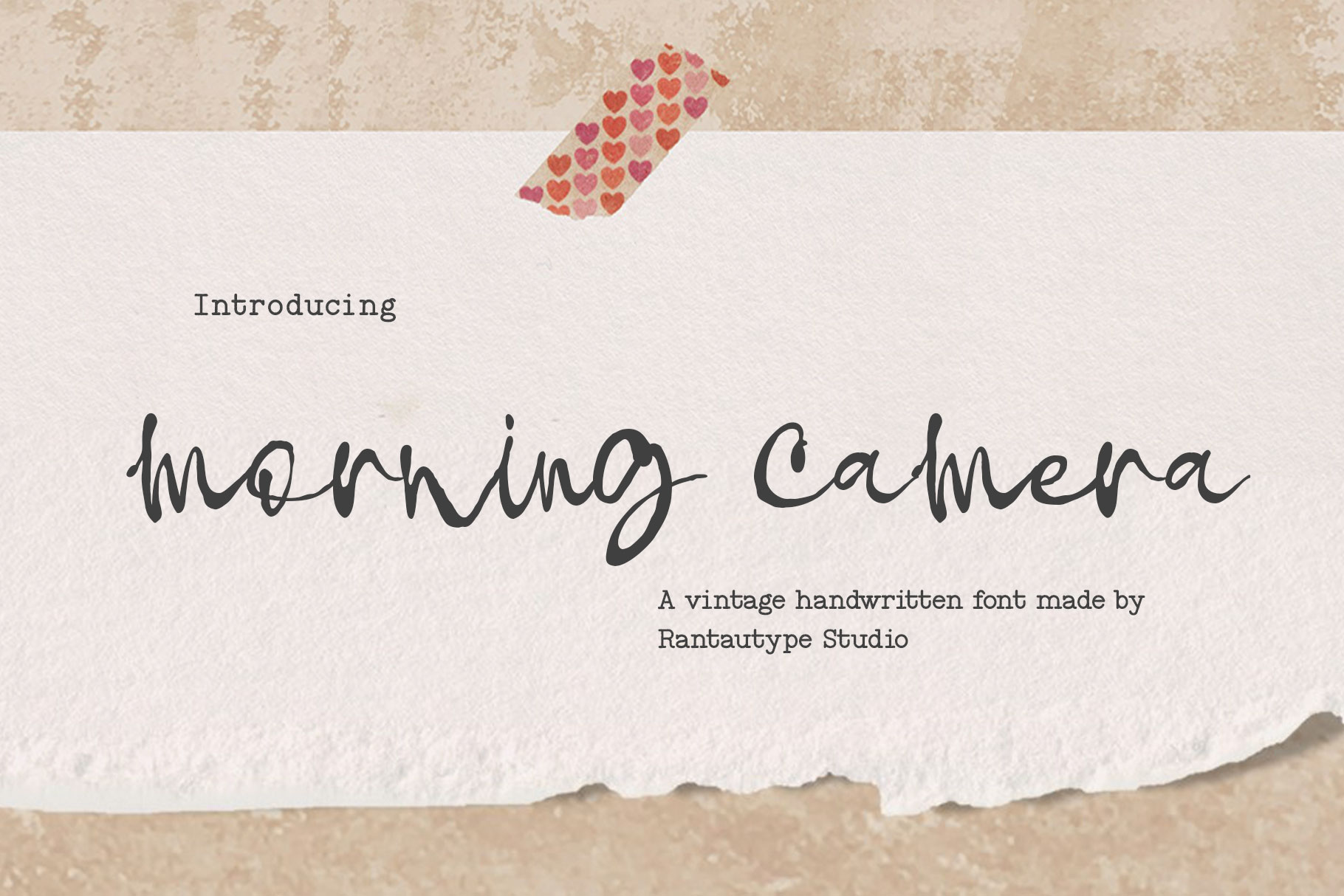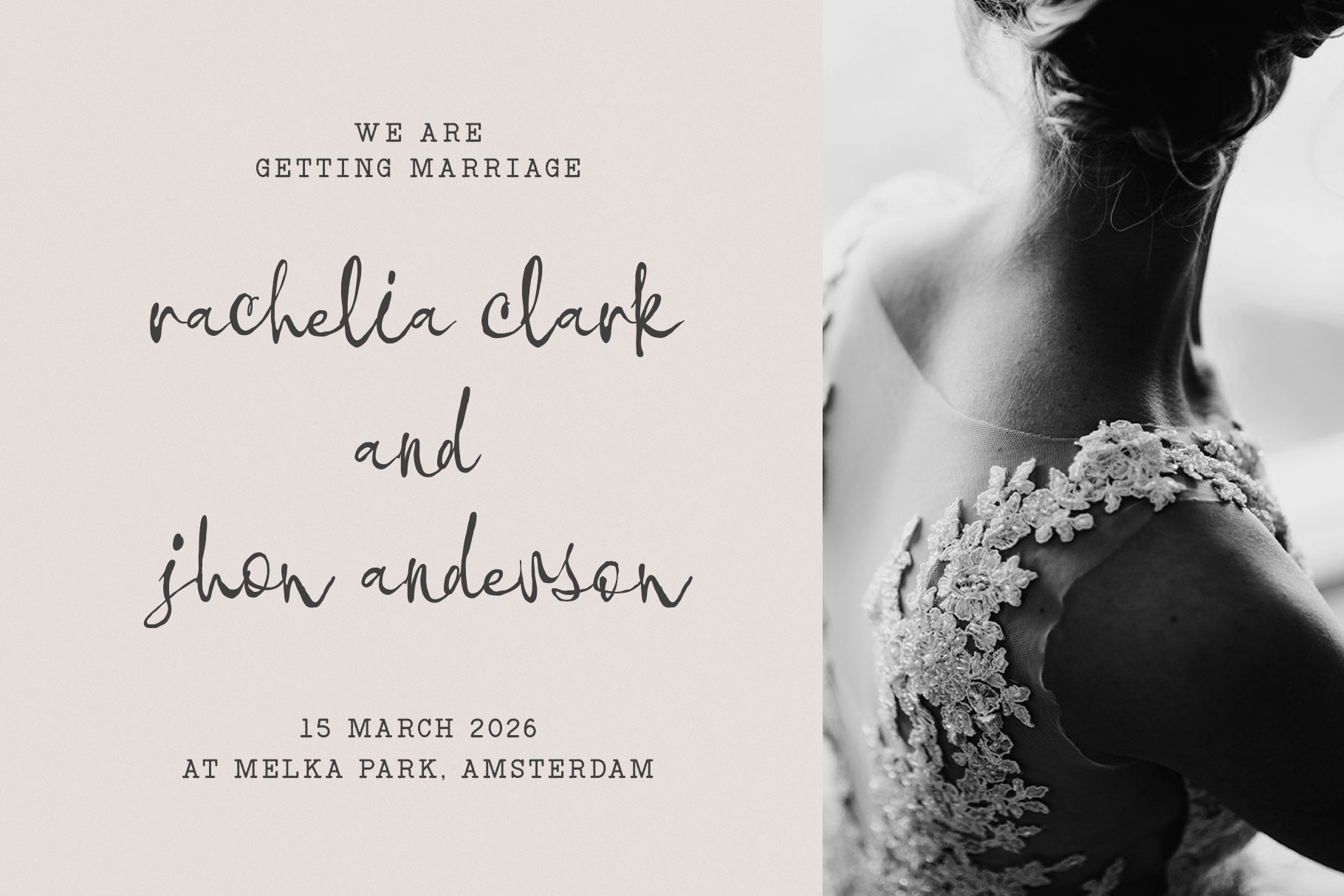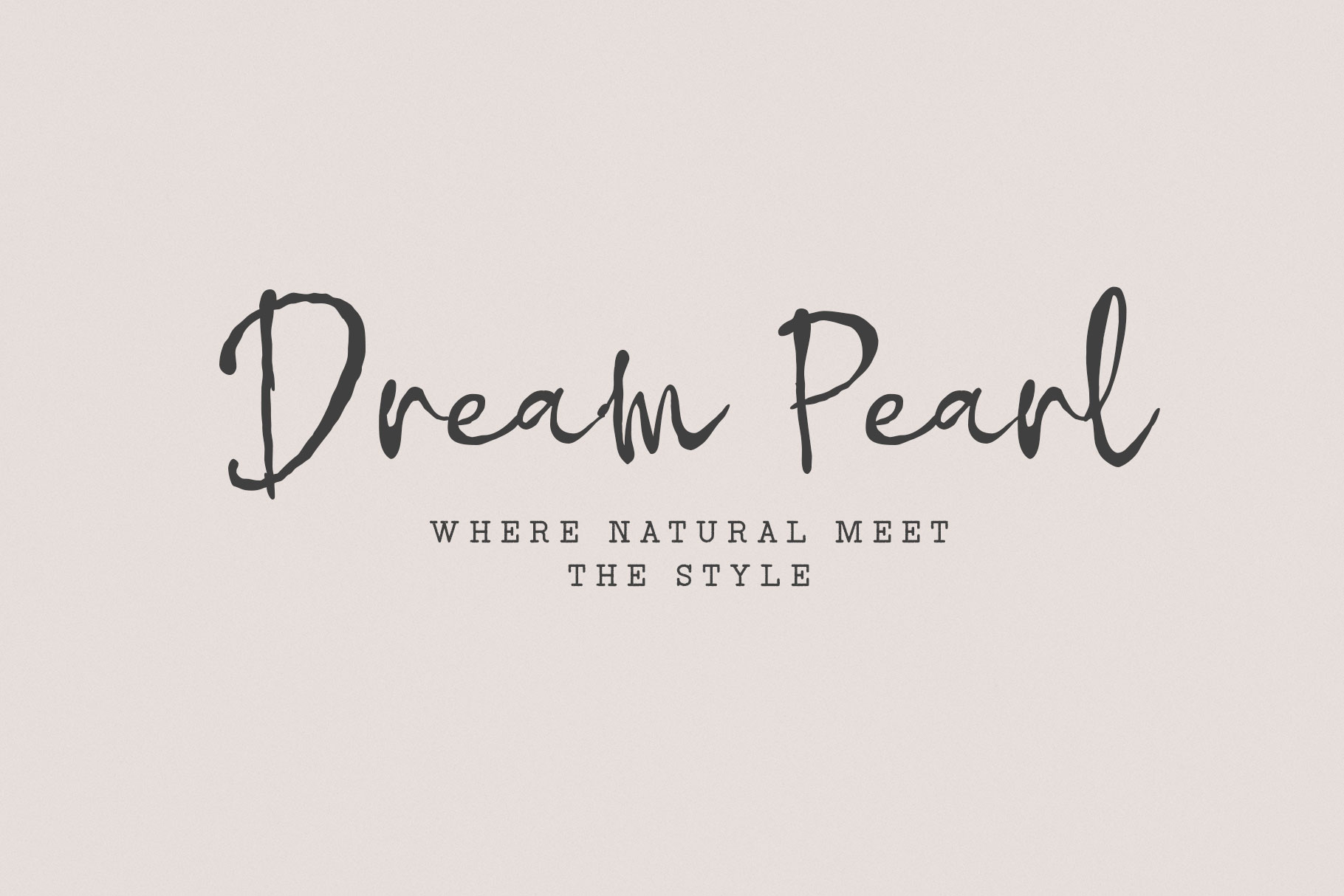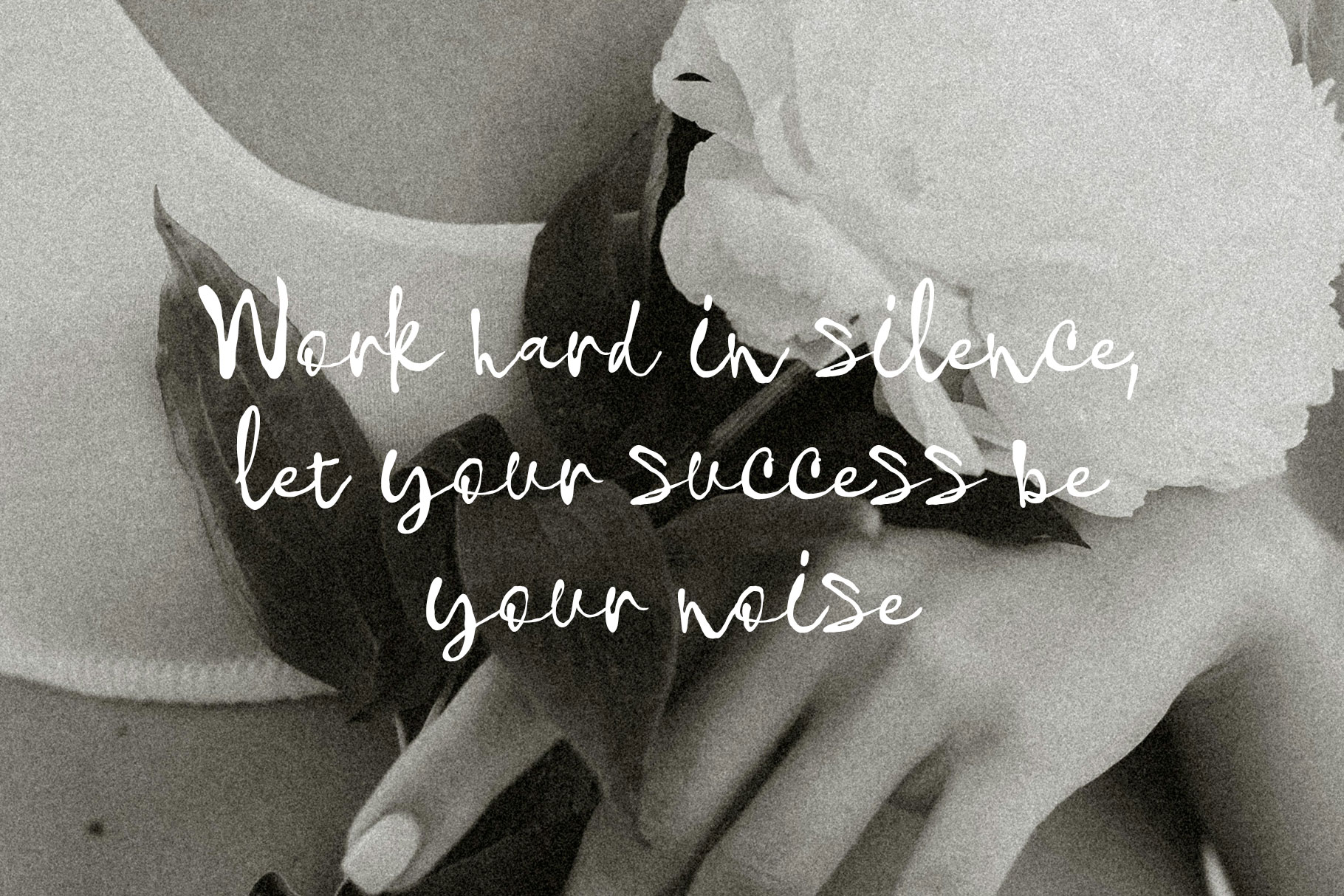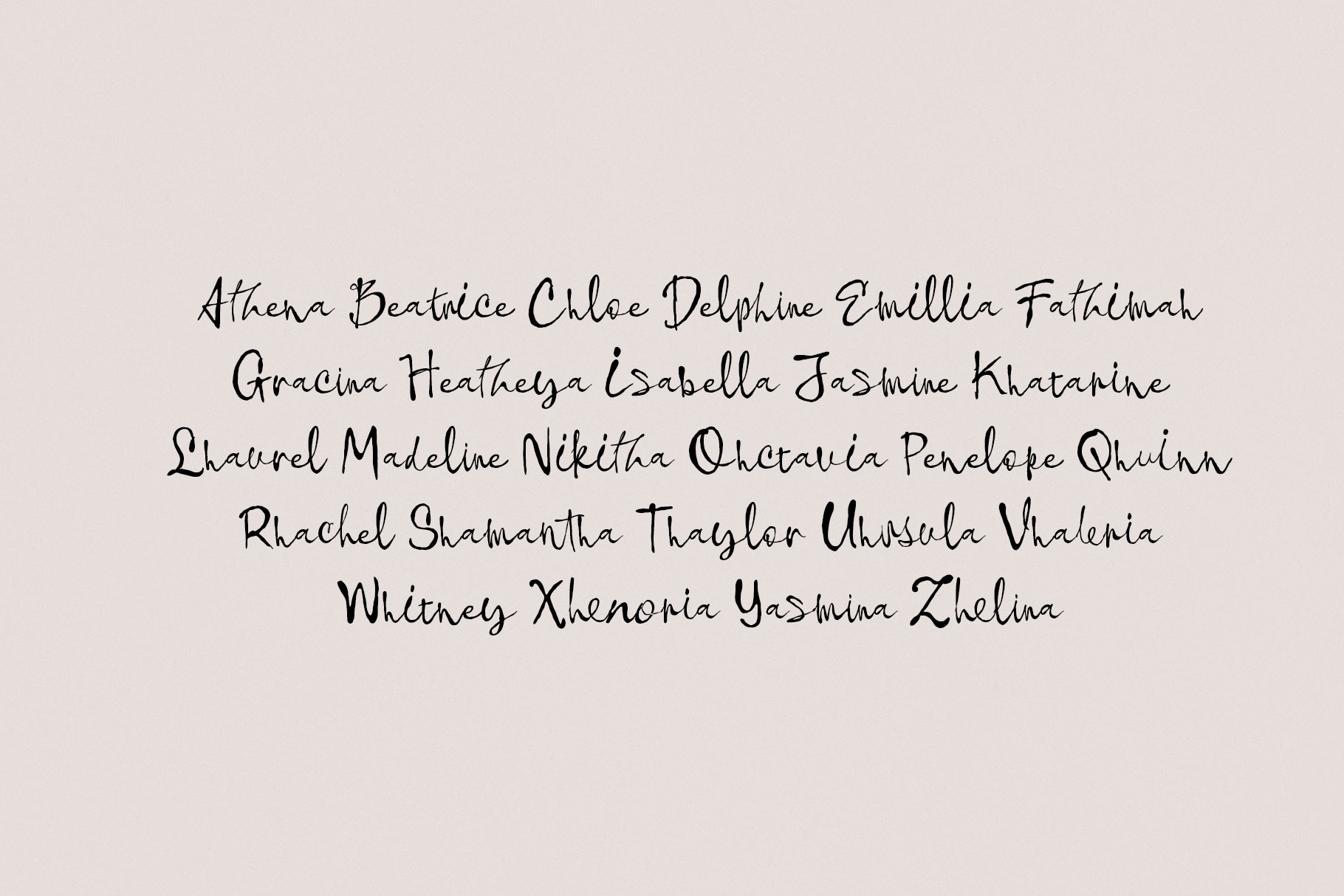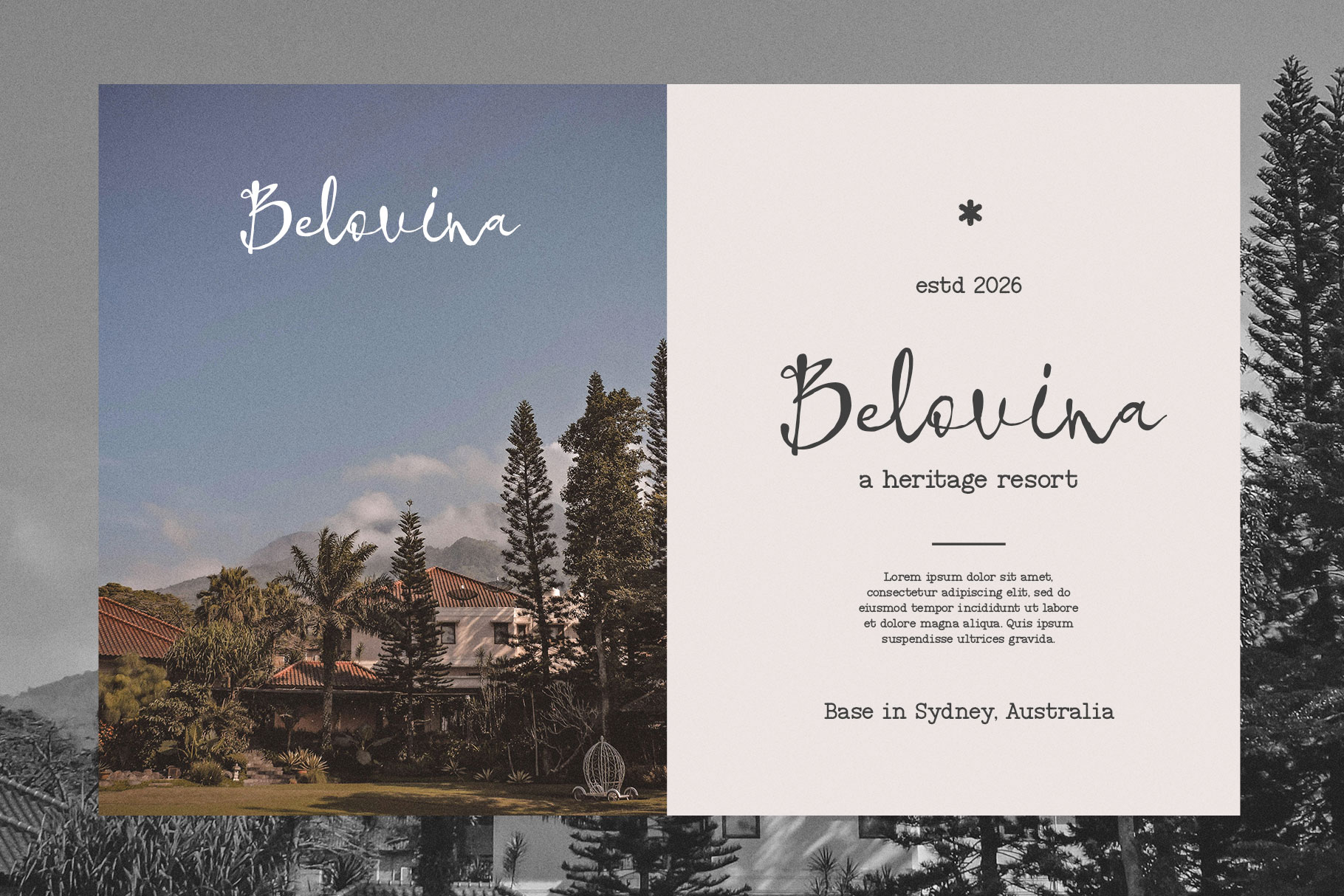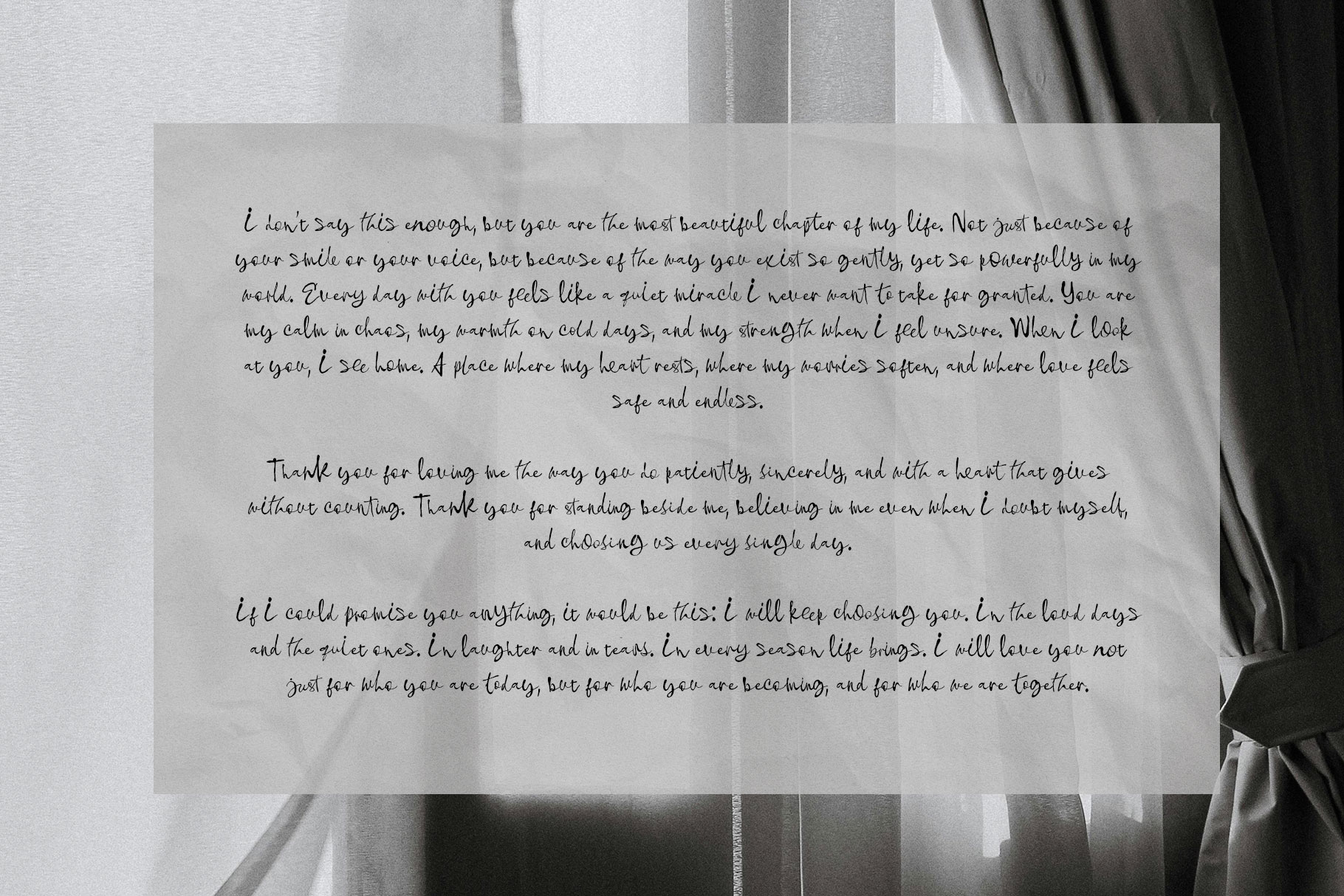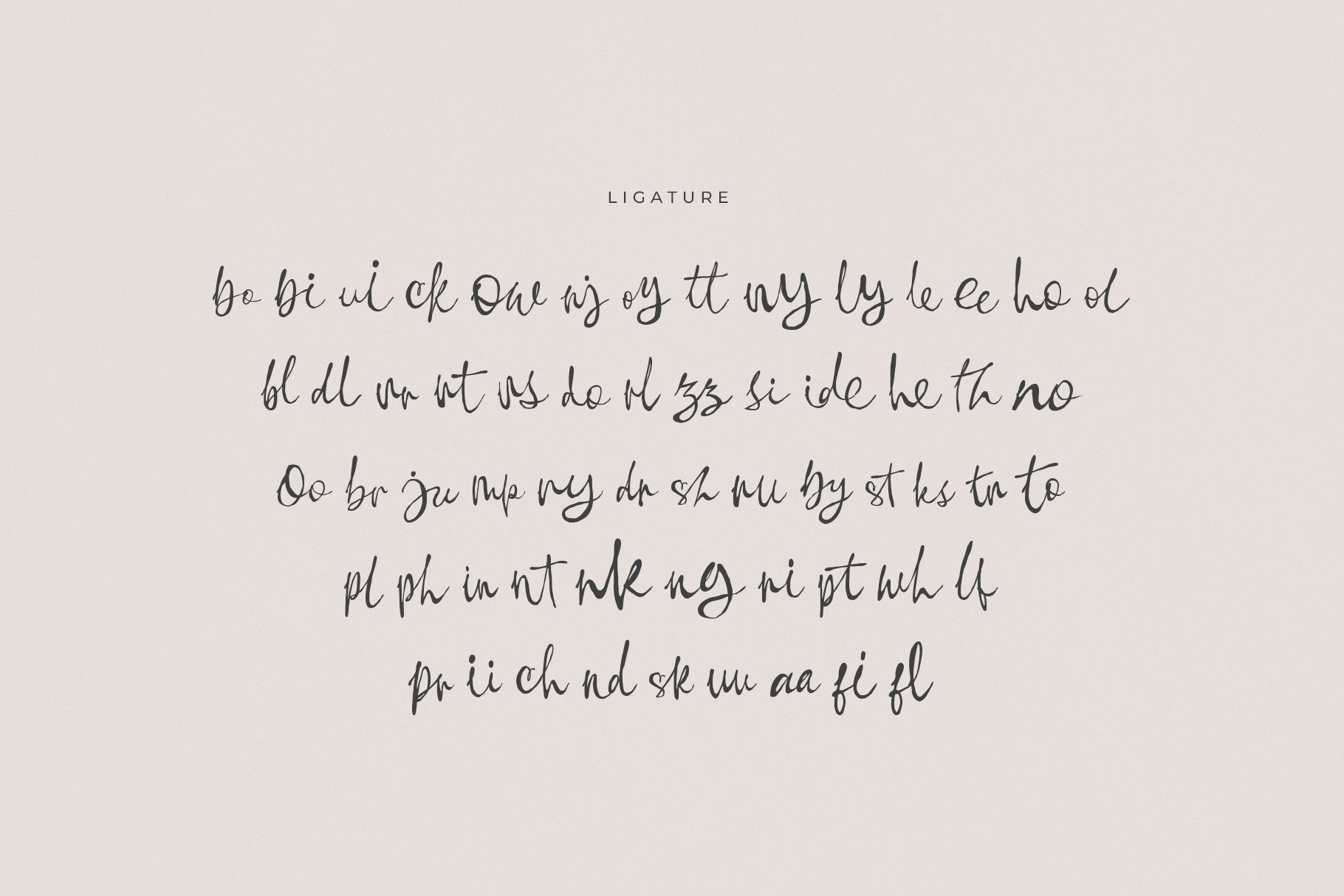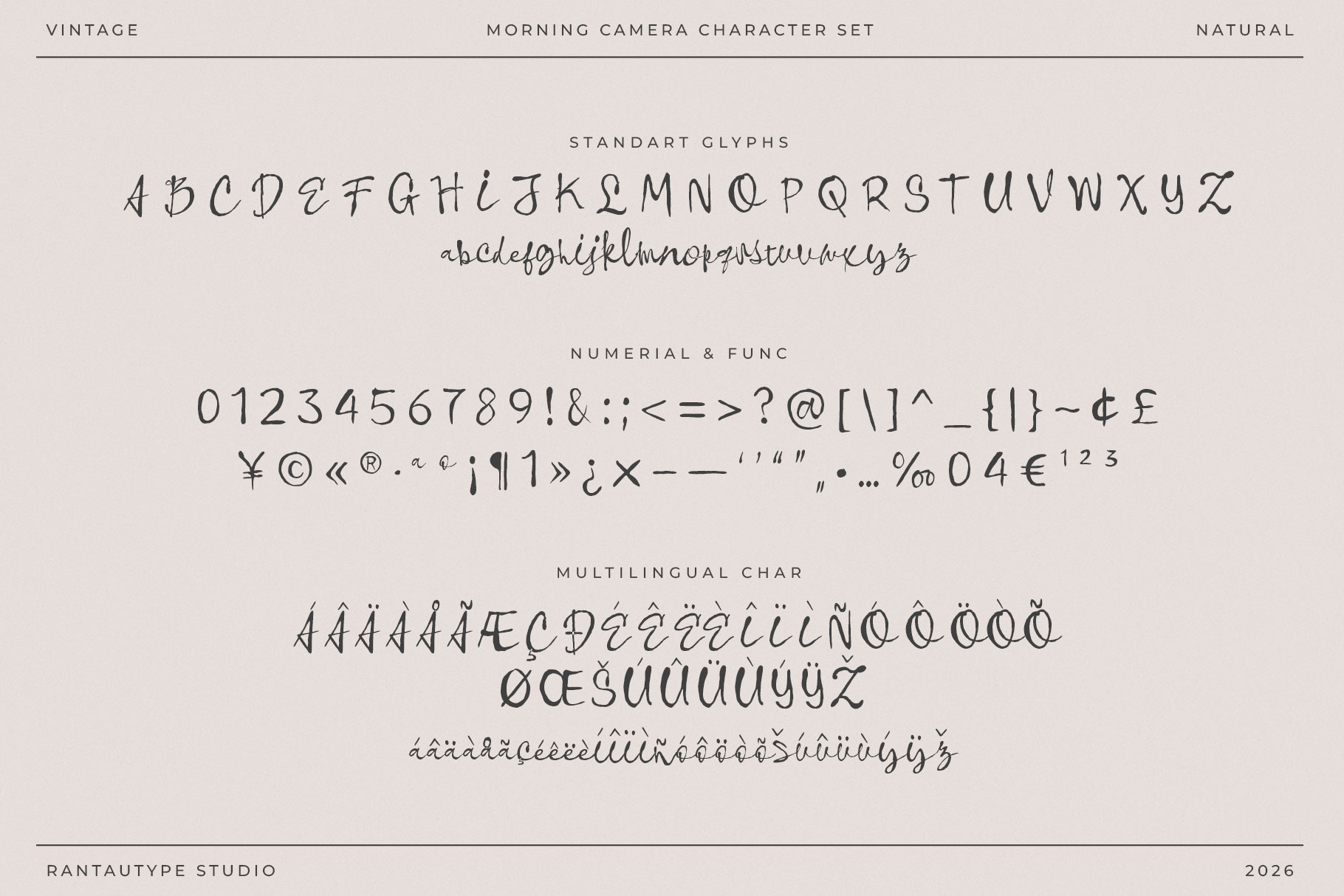
Morning Camera Natural Handwritten Font
Morning Camera is vintage natural font inspired by handwritten notes, old shop signs, and the warm texture of paper aged by time, this style carries the soul of something made slowly and with care.
Morning Camera is a perfectly choice for any creative endeavor, creating, modern, lifestyle design such as logotype, title, cover, branding, invitations, wedding designs, display and magazine, social media posts, advertisements, printed quotes, product packaging, corporate brand, product designs, labels, photography, watermarks, special events and any other project with vintage touch.